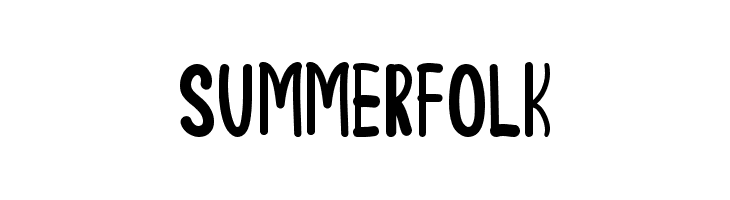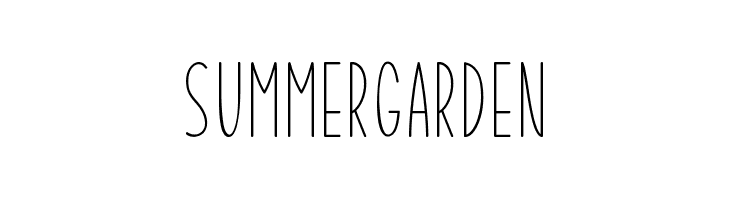
( Fonts by Md Shohail Bhuian )
A playful, bold, and hand-drawn style with rounded edges.
A light, elegant font with tall, narrow characters and a modern aesthetic.
( Graphix Line Studio )
A tall, narrow font with rounded edges and a modern, cohesive style.
A bold, dynamic script font with fluid, connected letterforms and a hand-lettered calligraphy style.
A tall, narrow font with clean lines and a modern, elegant style.
( Fonts by Etik Fatimah )
Playful handwritten-style font.
( Fonts by Misti's Fonts )
Playful handwritten font with rounded edges.
( Fonts by Letterafa Studio )
Playful handwritten font with a casual style.
( Fonts by Andi Moz )
A playful, bold, and rounded font with a whimsical style.